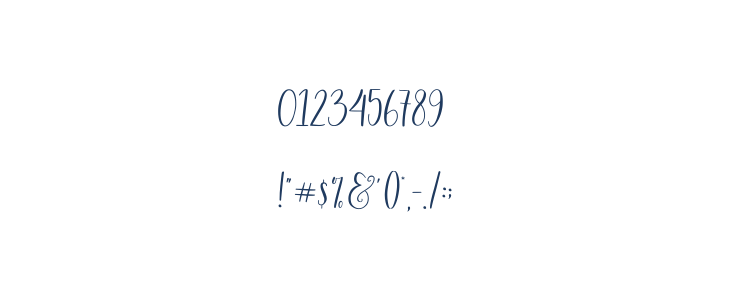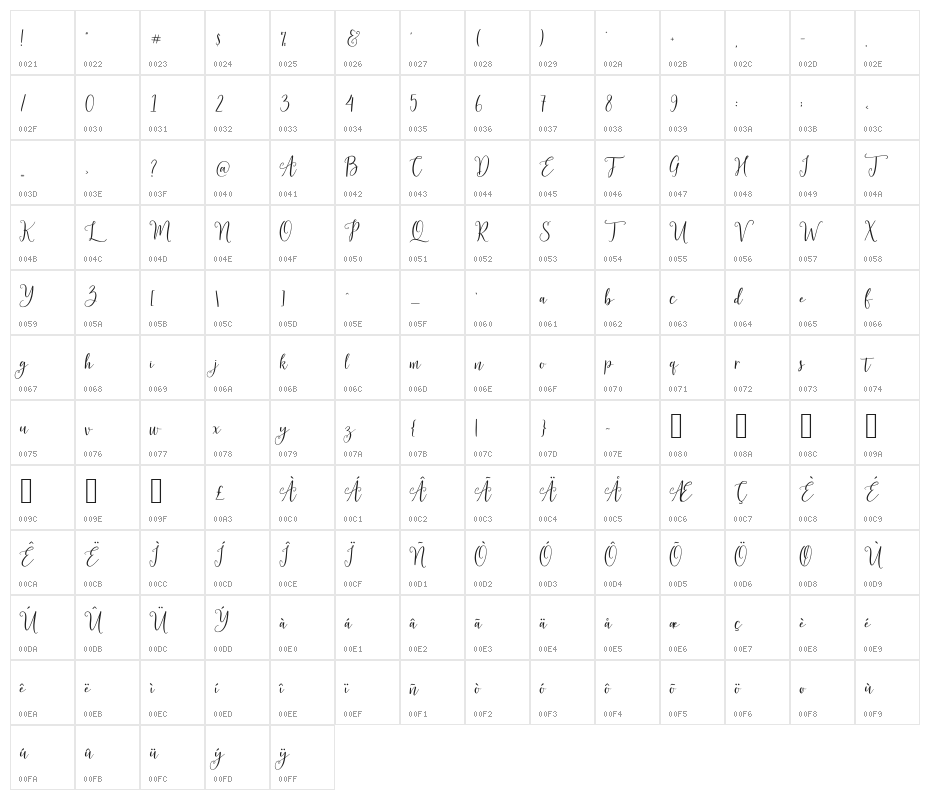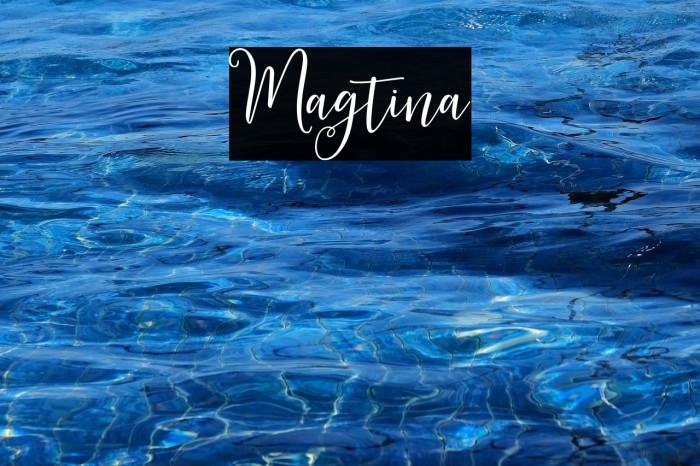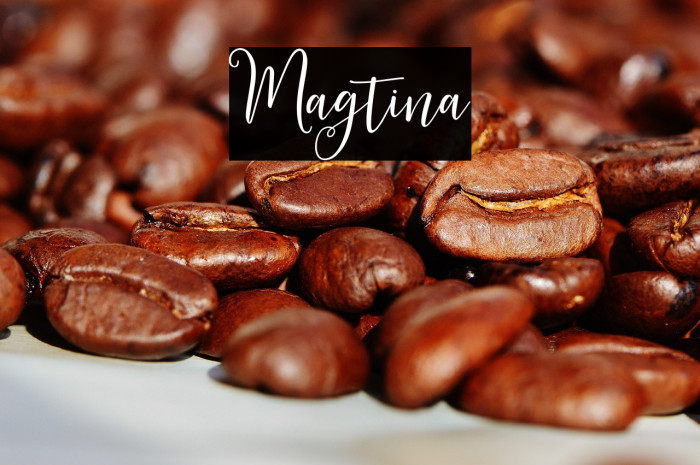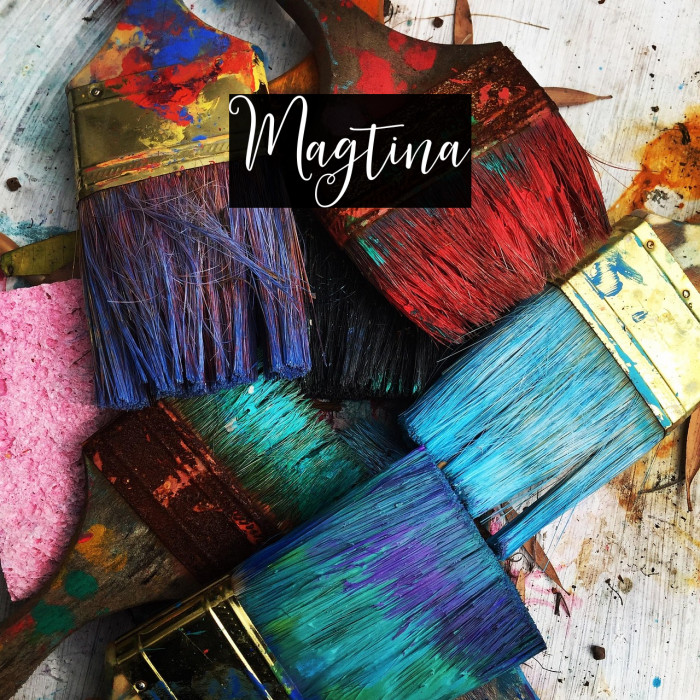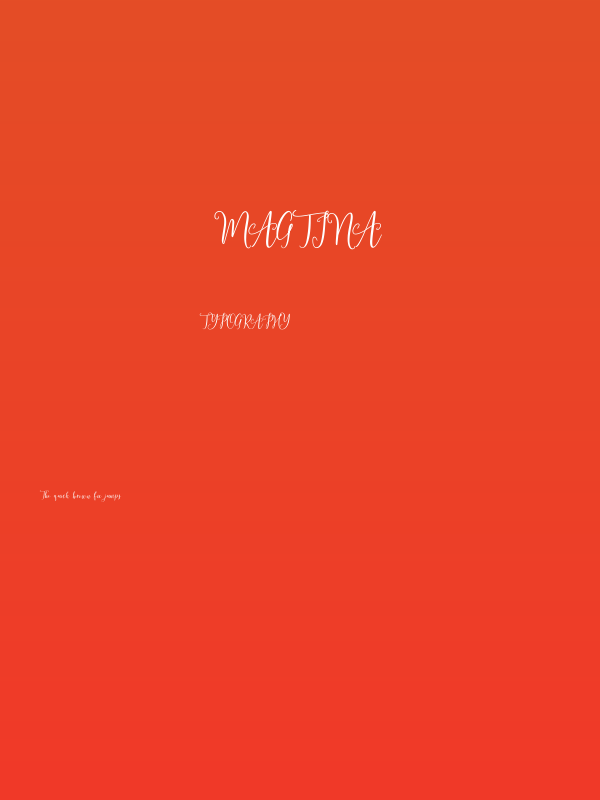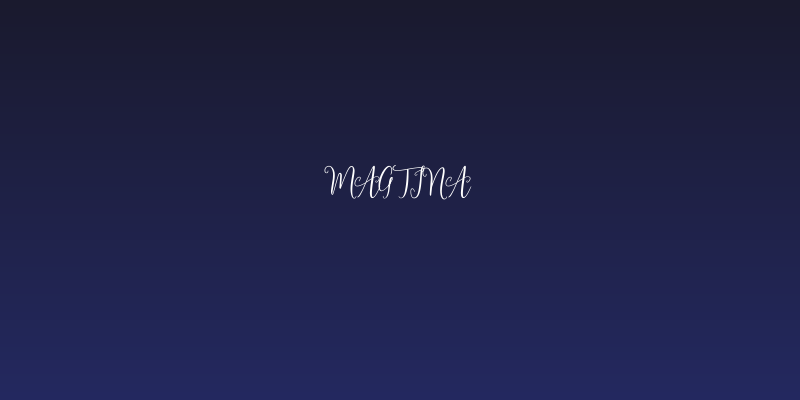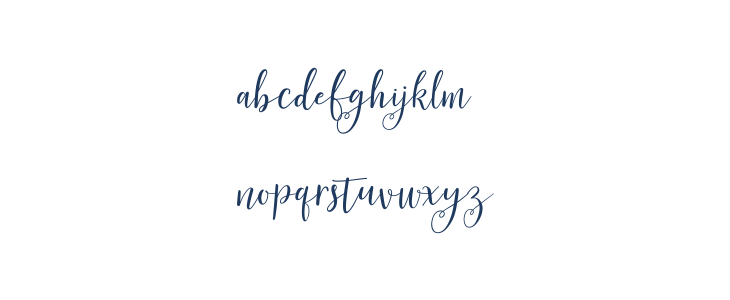
Magtina Font
Magtina Description
This elegant script font features flowing, cursive letterforms with a sophisticated and graceful appearance. The uppercase letters are ornate, with intricate loops and flourishes that add a touch of luxury and refinement. The lowercase letters maintain a consistent style, with smooth, connected strokes that enhance readability while preserving the font's decorative nature. The numerals are stylish and complement the overall aesthetic, making them suitable for both formal and creative applications. Special characters are designed with the same attention to detail, ensuring a cohesive look across all text elements.
| Use Case | Logos, Invitations, Decorative Text |
| Proposed Projects | Ideal for wedding invitations, elegant branding, greeting cards, and luxury packaging. |